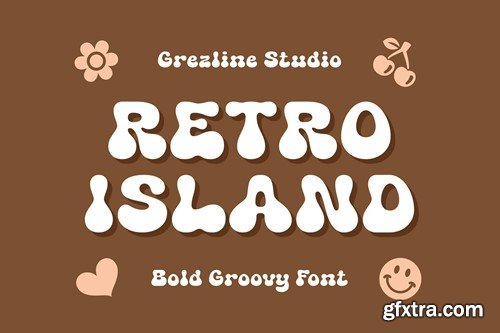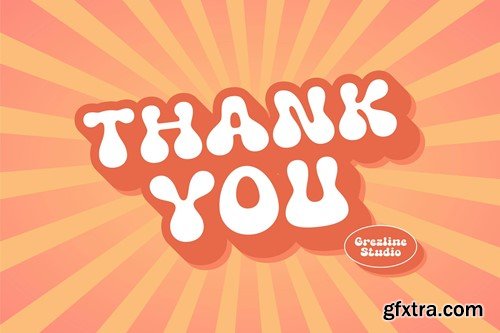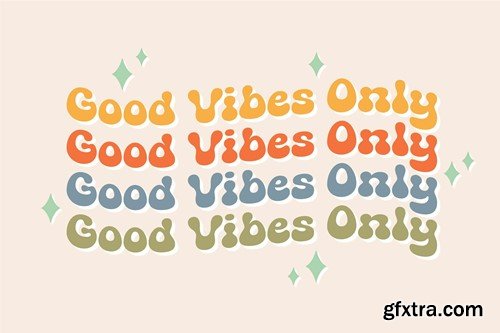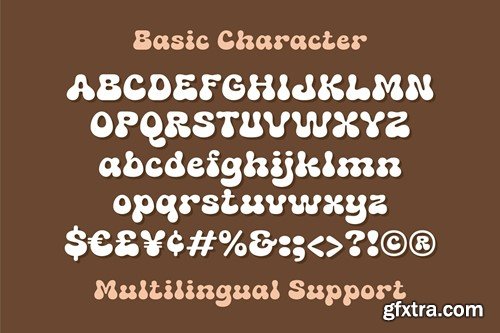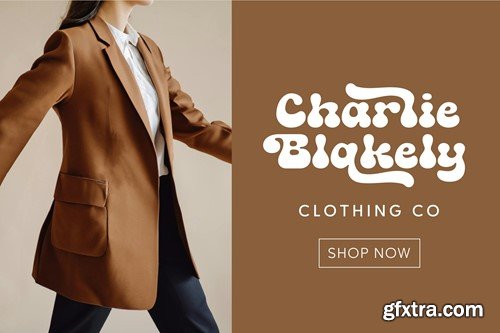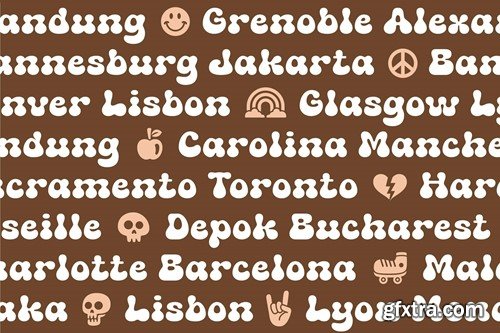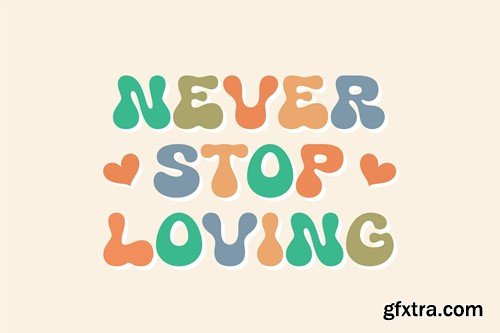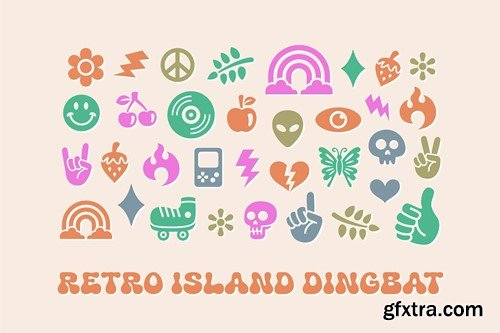
复古岛 - 勇敢迪斯科字体 MQXSUGC
Retro Island - Bold Groovy Font MQXSUGC
Retro Island - Bold Groovy Font
Retro Island is a cheerful bold groovy font. This font was designed to apply fun expression to any project design you are working on. Retro Island font is suitable for design that needs cute and groovy touch, such as kids design, birthday invitation, summer design, t-shirt design, crafting and many more.
Feature :
• Dingbat Graphic
• Ligature & Alternate glyphs
• Multilingual Language